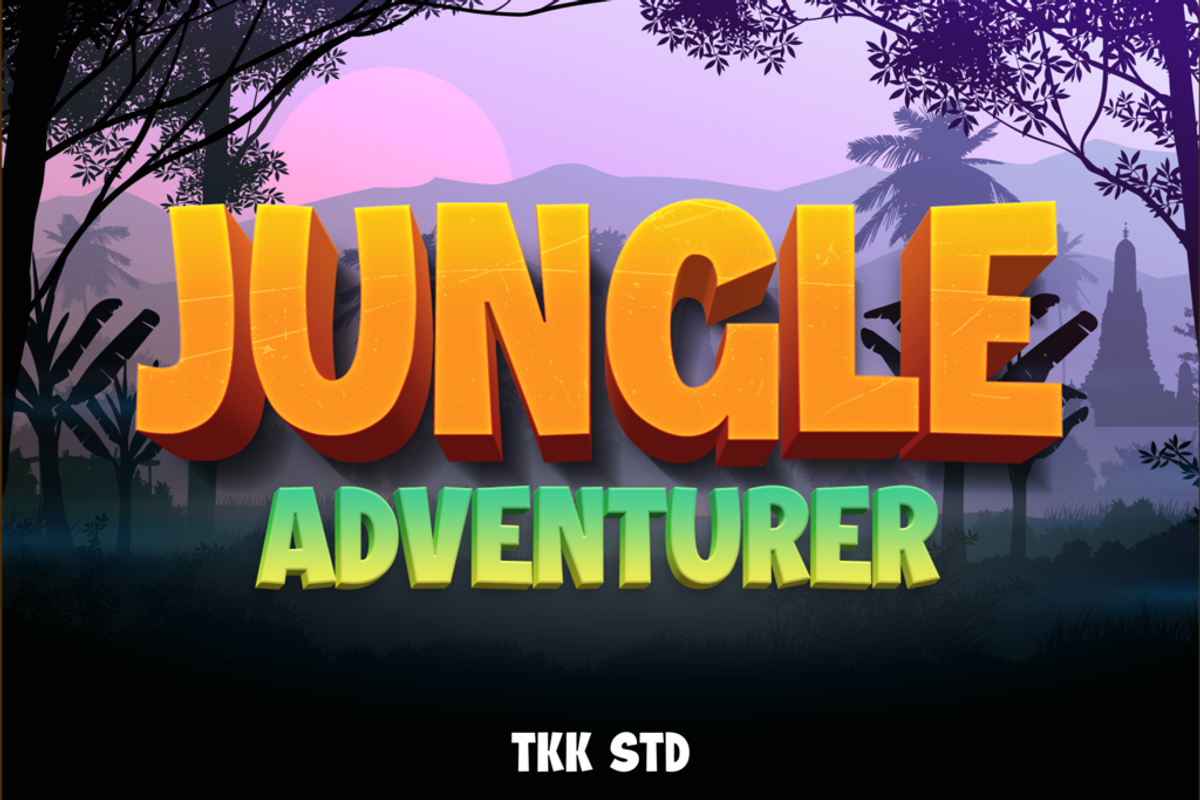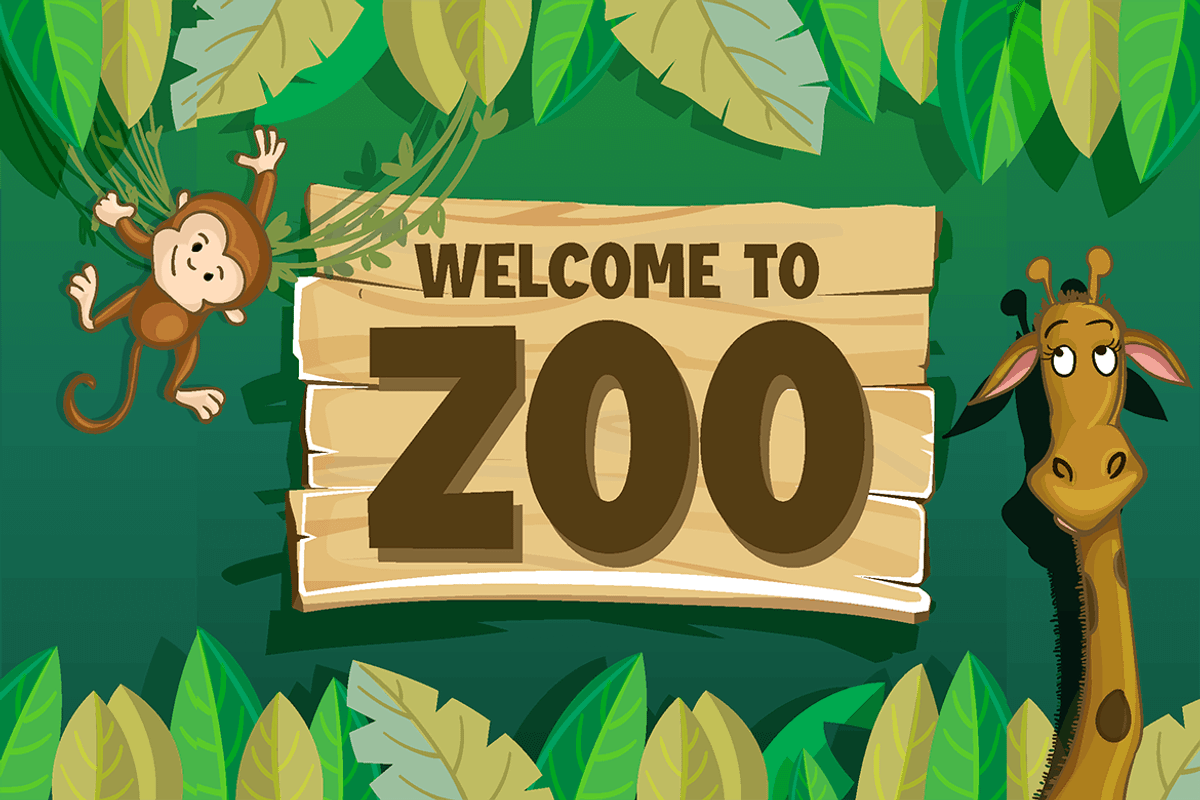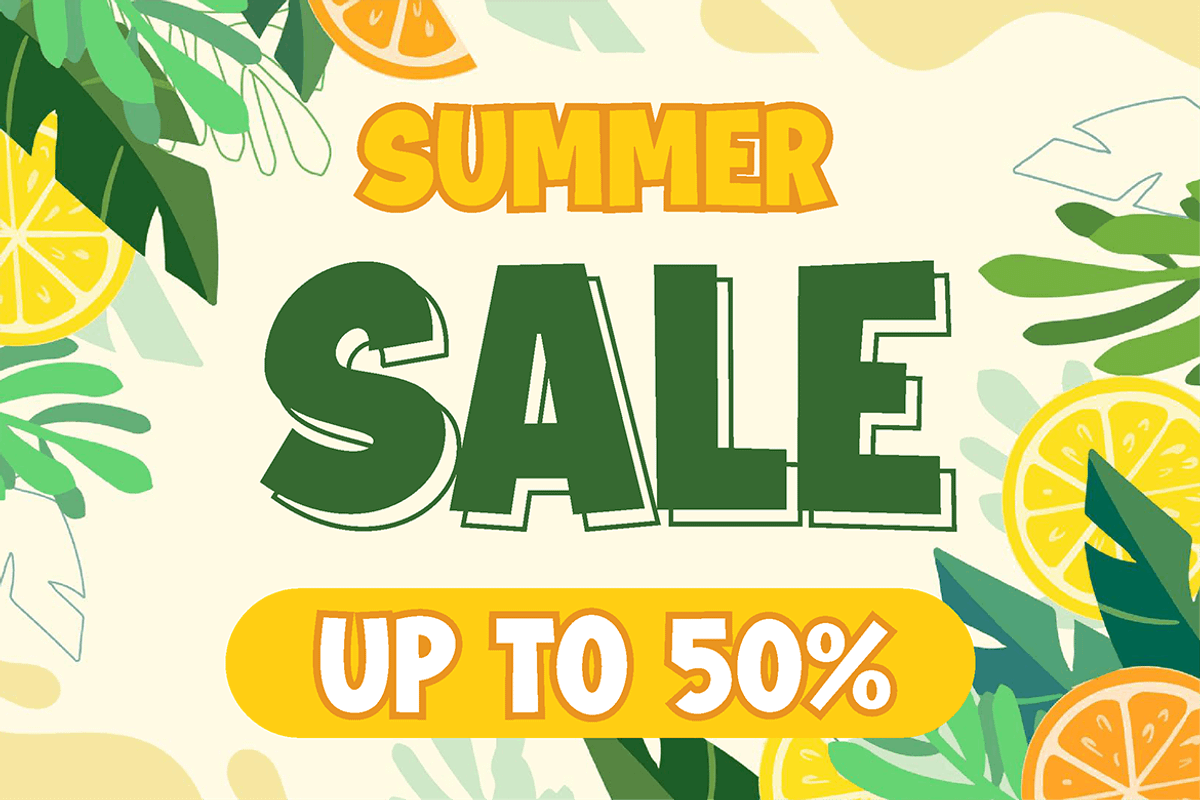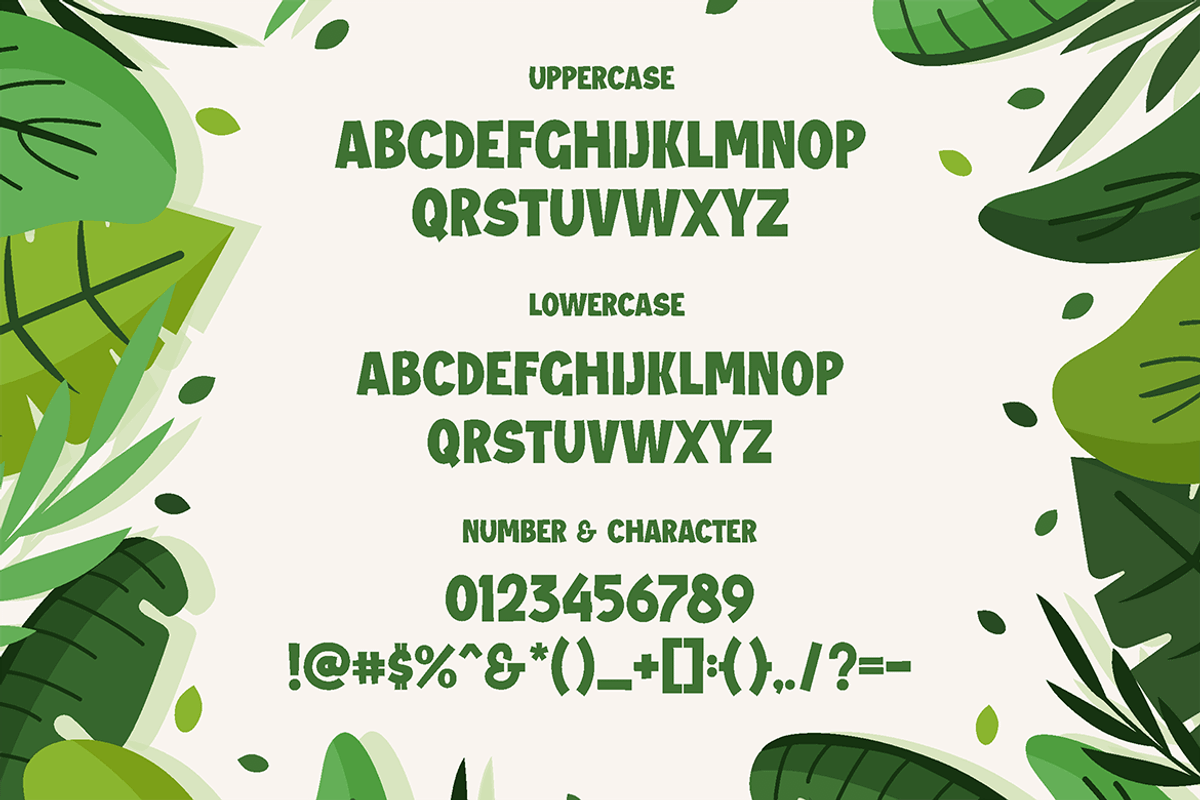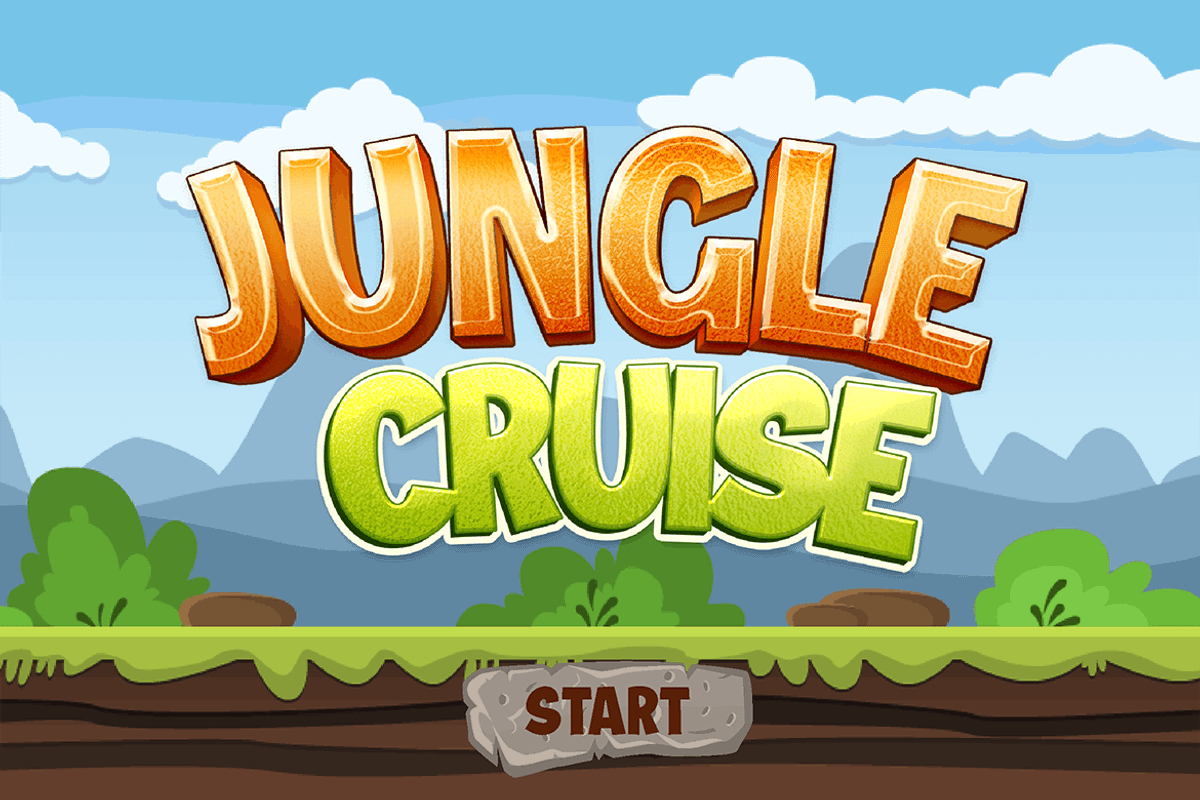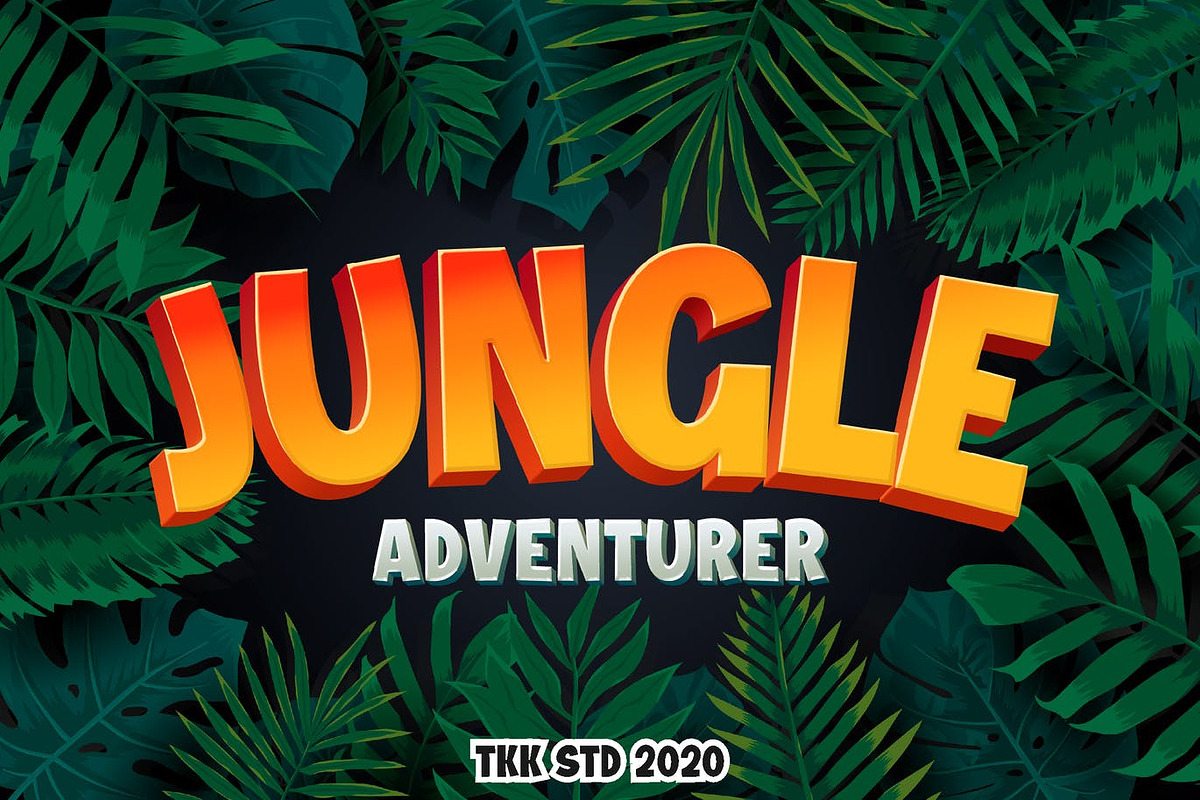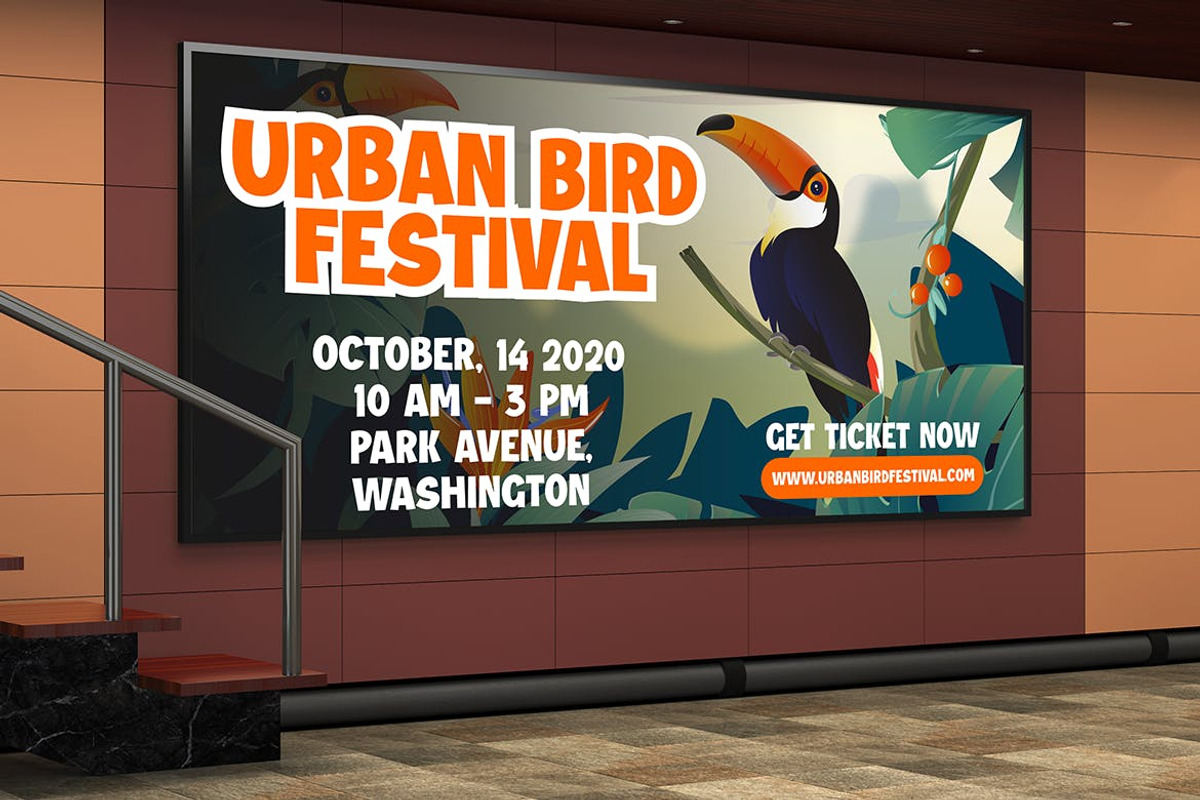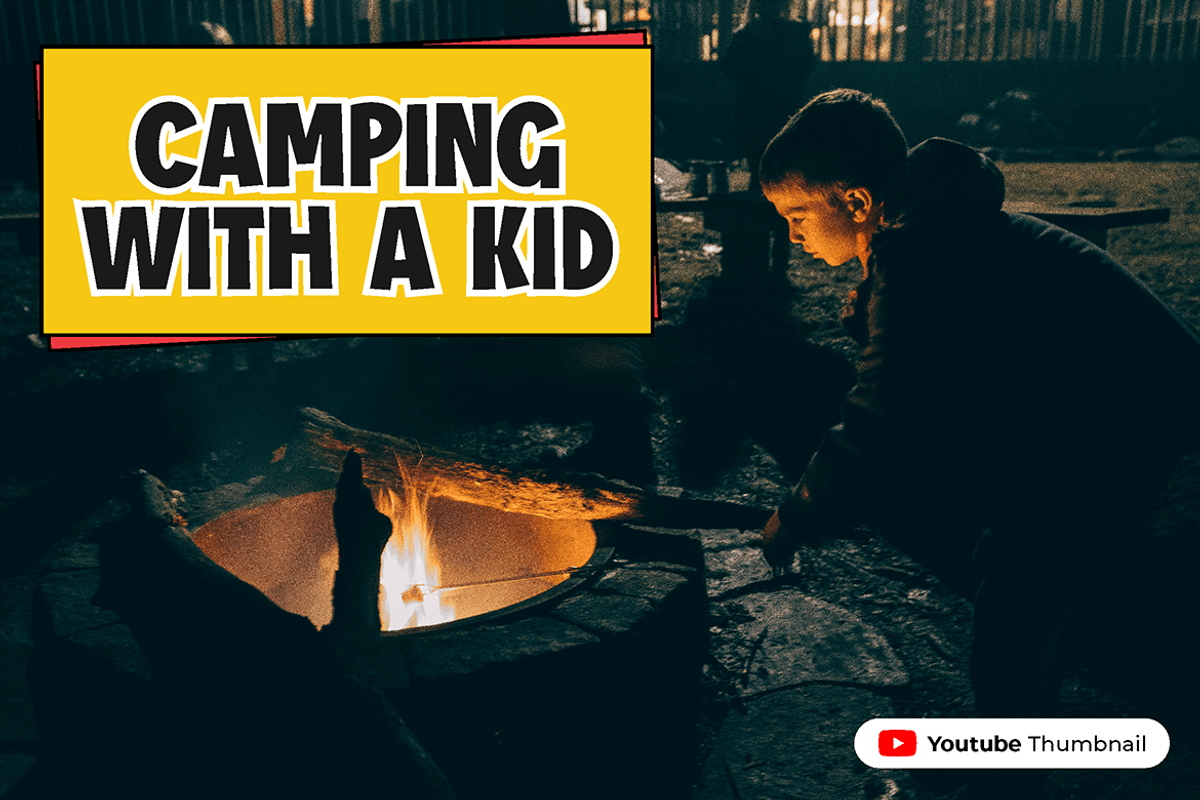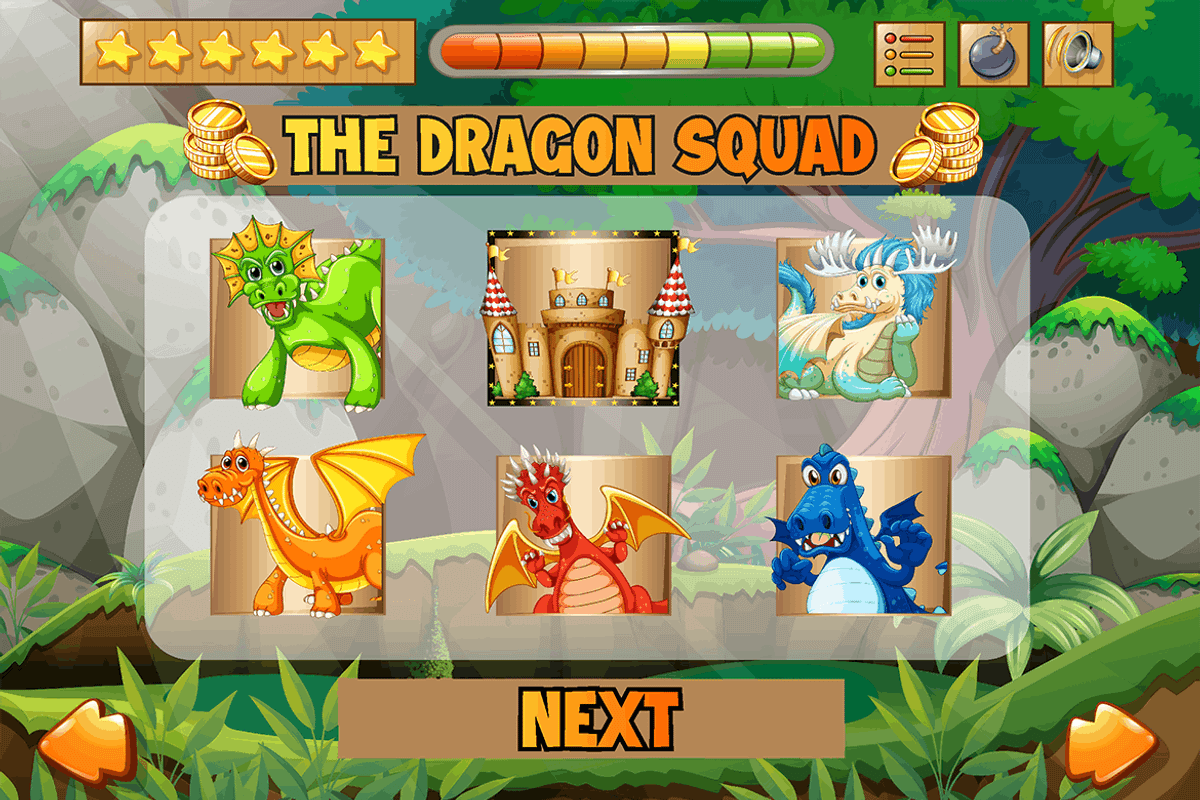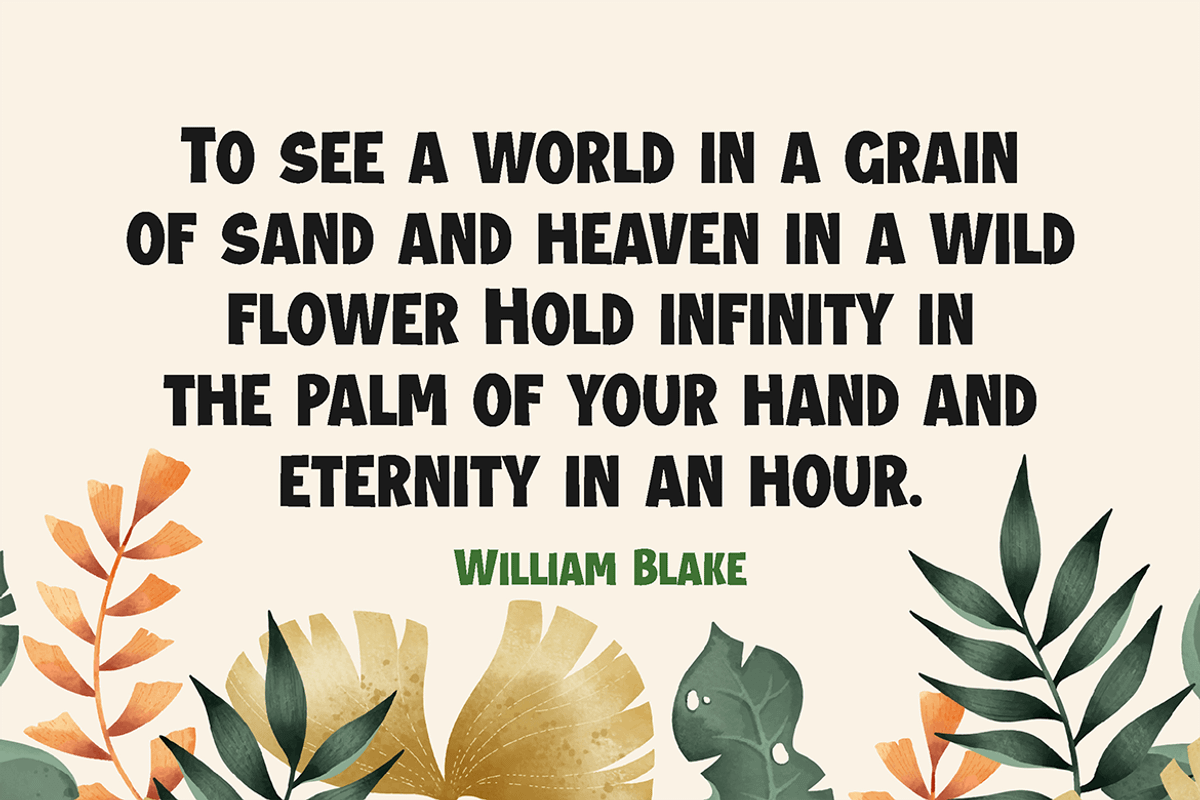
Jungle Adventurer - Gaming Font
Jungle Adventurer gaming font emphasizes every word you put on the screen. Having a bold shape with a powerful and strong stern sans-serif with a sharp corner.
Suit perfectly for Online Games, poster, movie title, fast food menu, magazine, youtube covers, youtube thumbnails, social media page covers and so on…